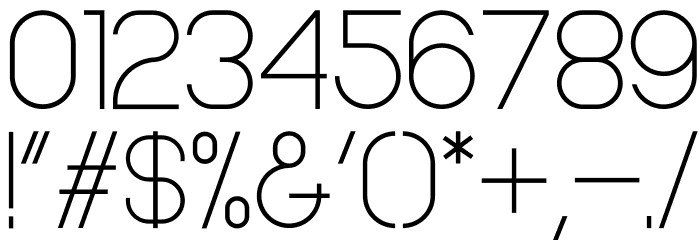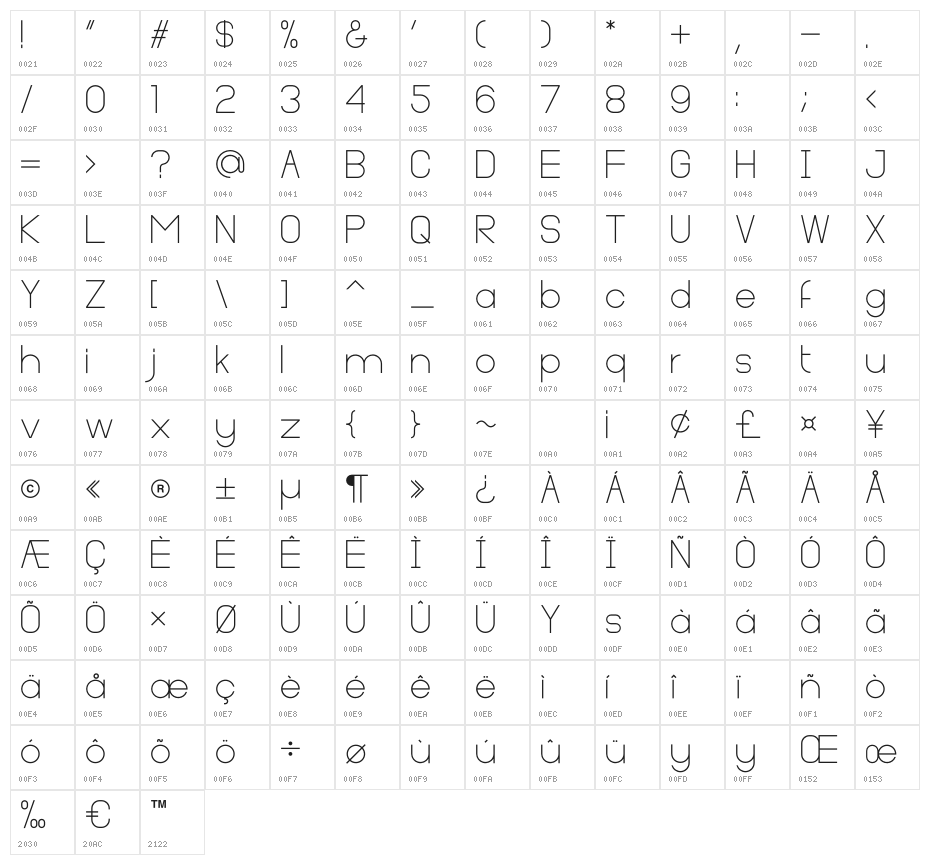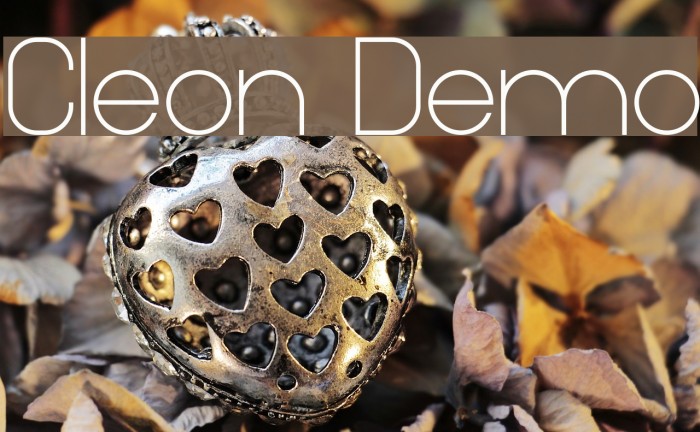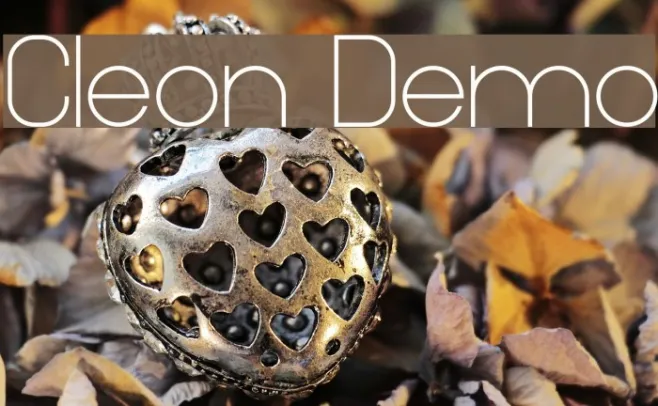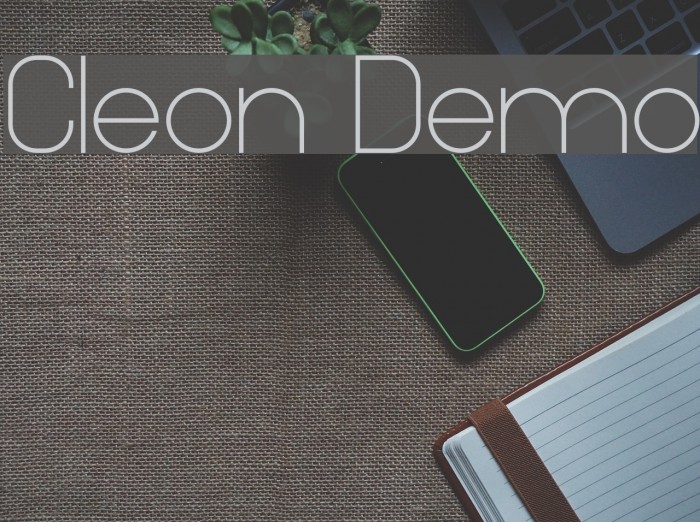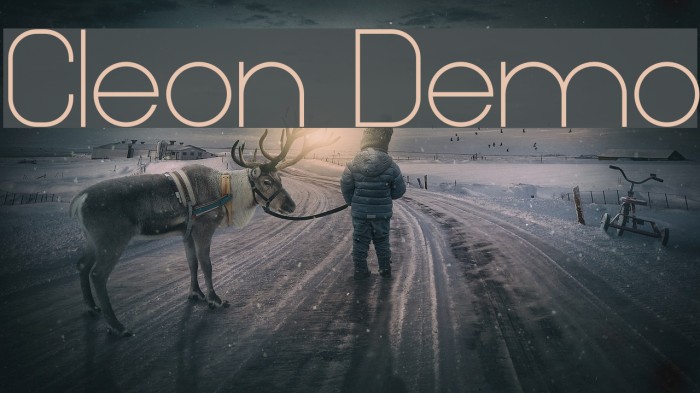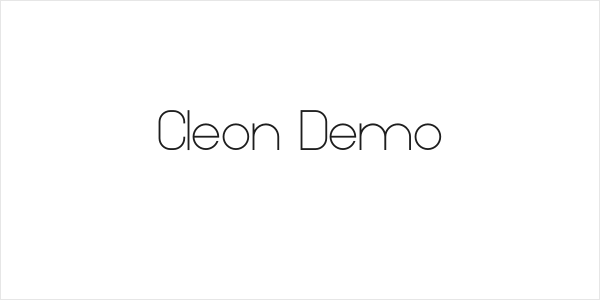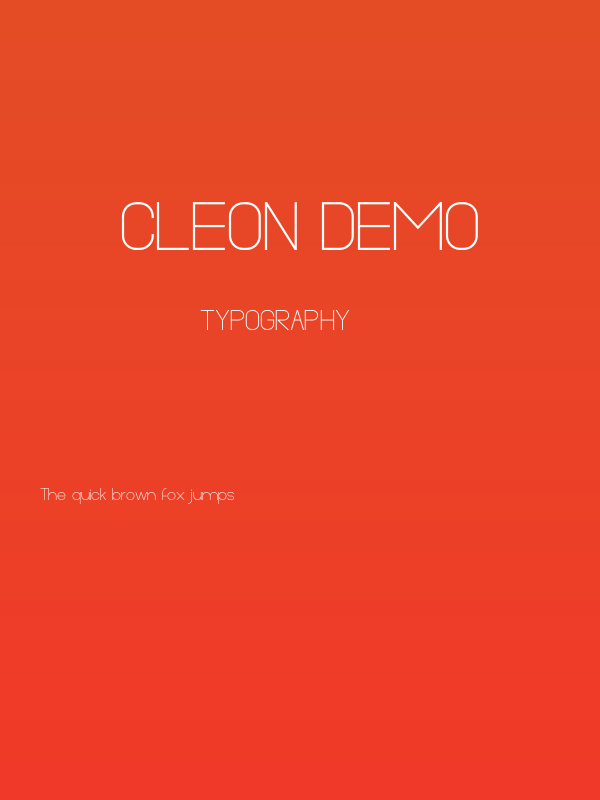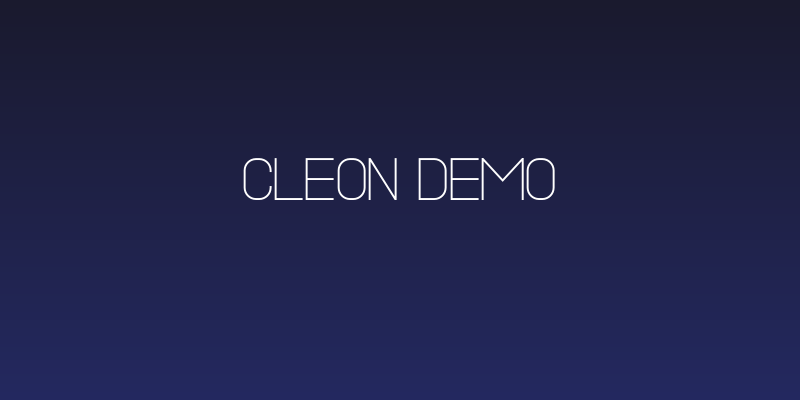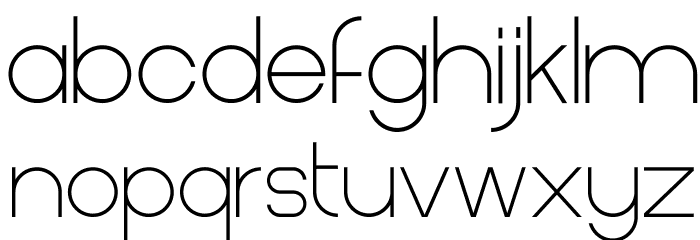
Cleon Demo Font
Cleon Demo Description
This font features a sleek, geometric design with clean lines and a modern aesthetic. The characters are constructed with a consistent stroke width, giving it a uniform appearance. The uppercase and lowercase letters maintain a balanced proportion, while the numerals and special characters integrate seamlessly into the overall style. Its minimalistic approach makes it versatile for various design applications, emphasizing clarity and readability.
Use CaseHeadlines, Logos, Digital media
Proposed ProjectsIdeal for branding, advertising, and digital media projects where a contemporary and clean look is desired.